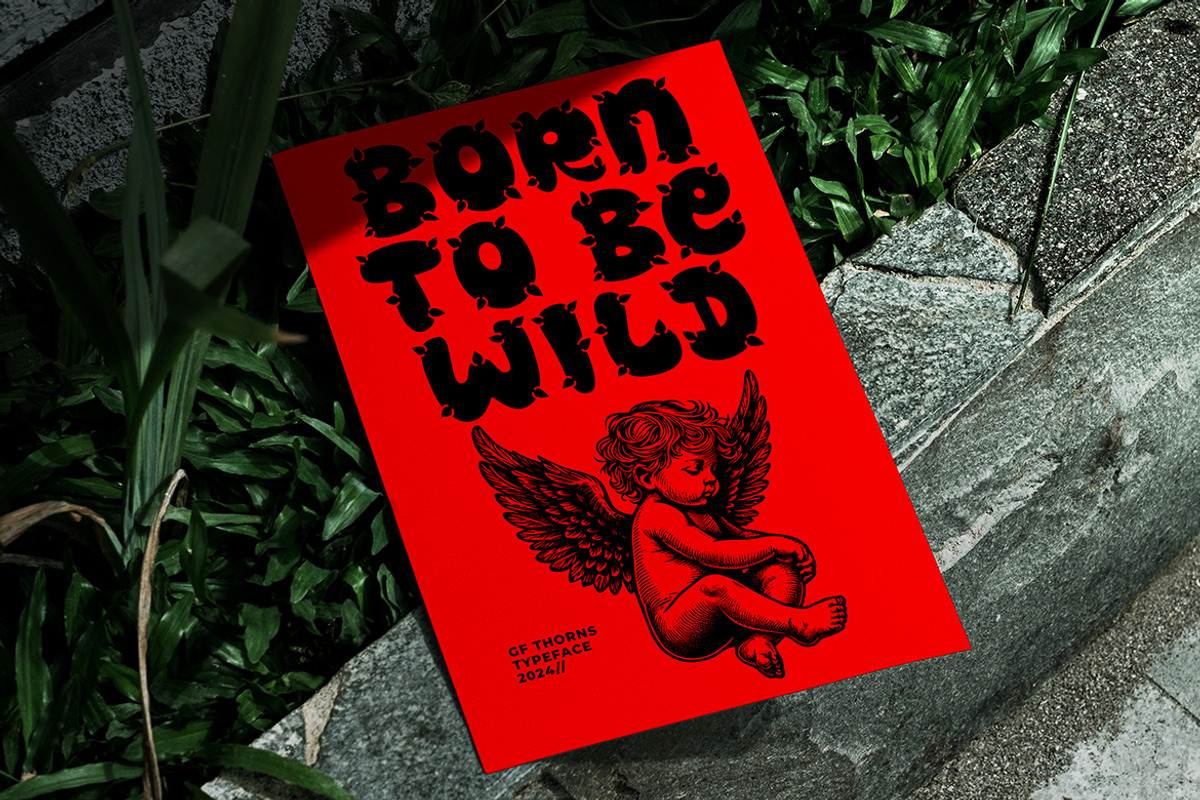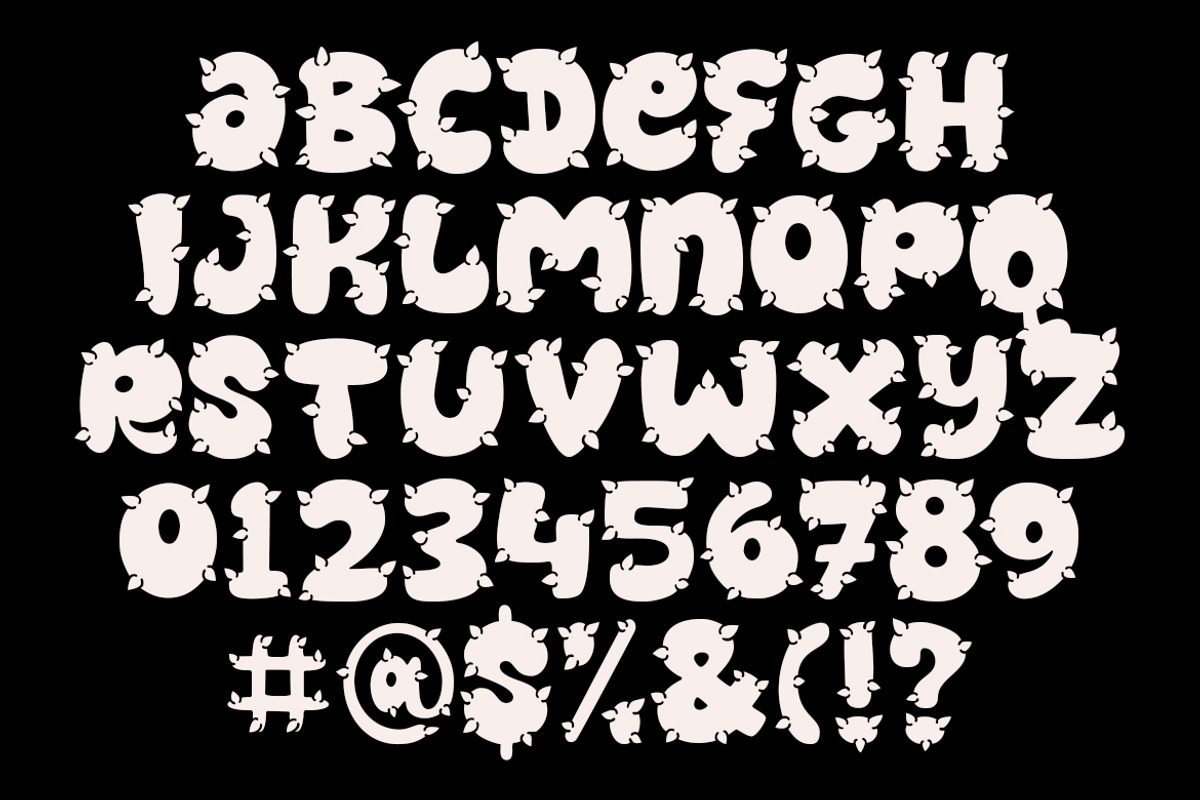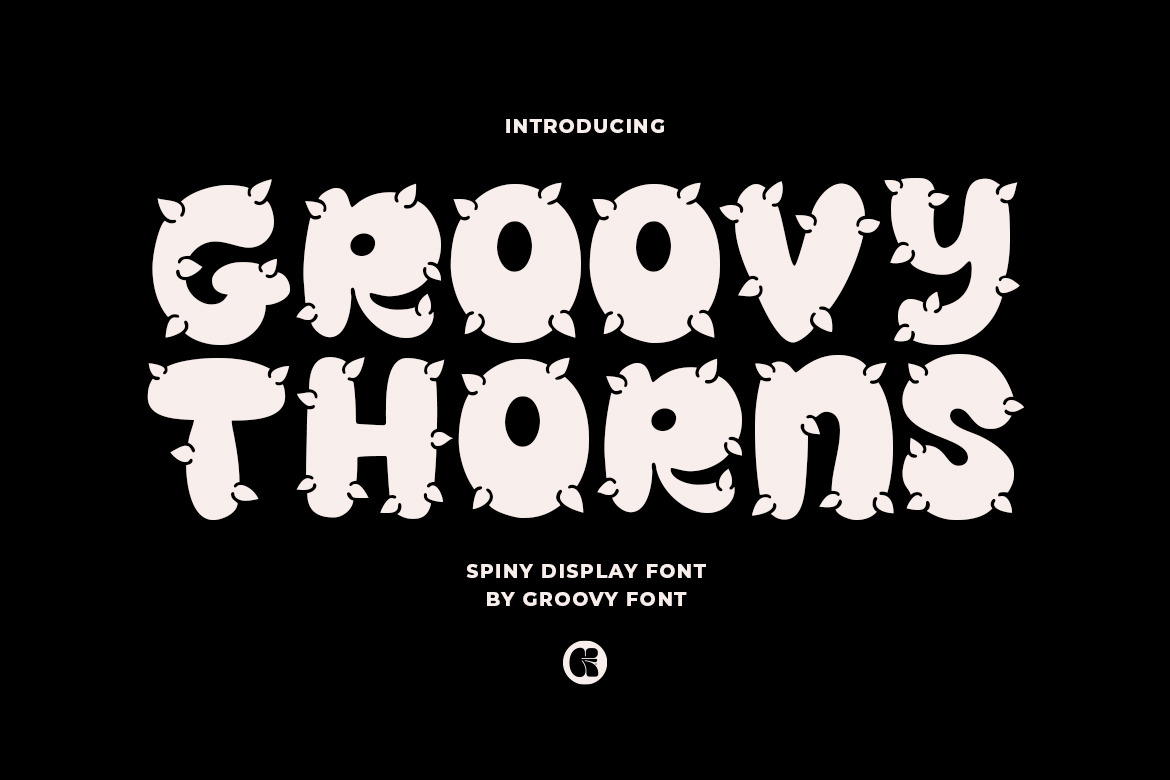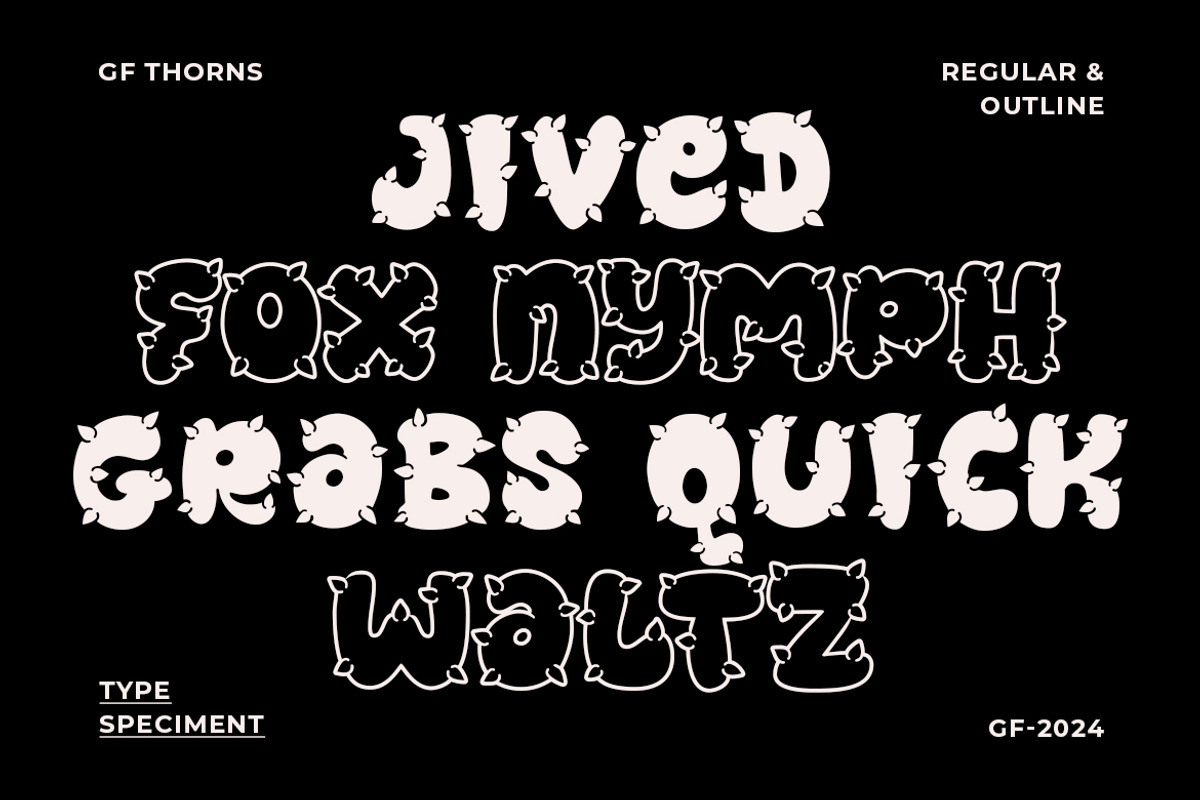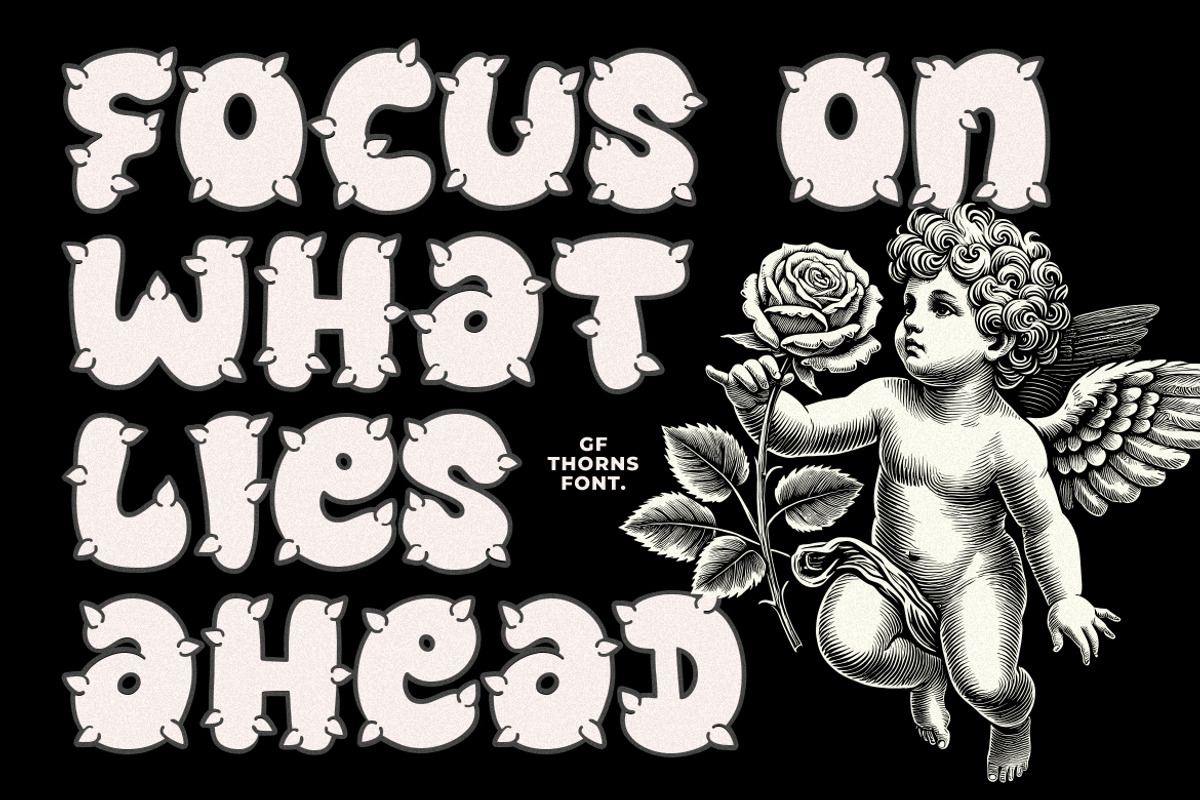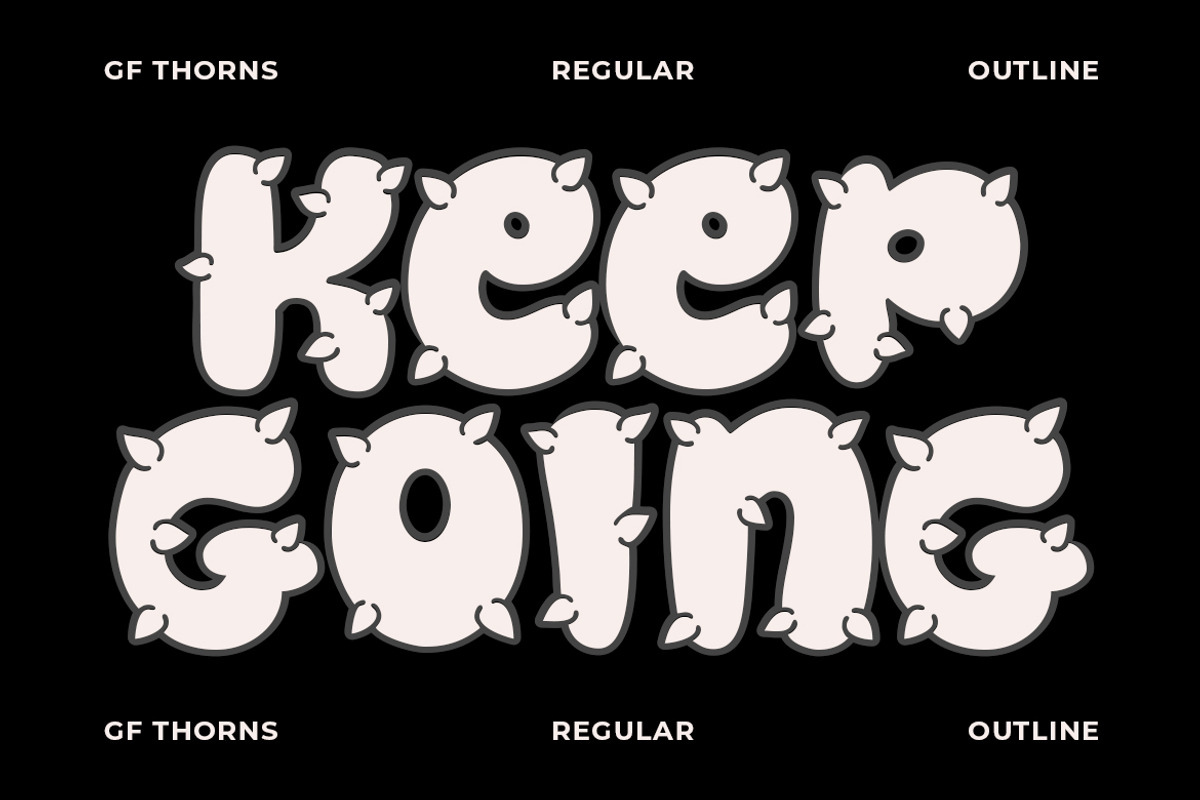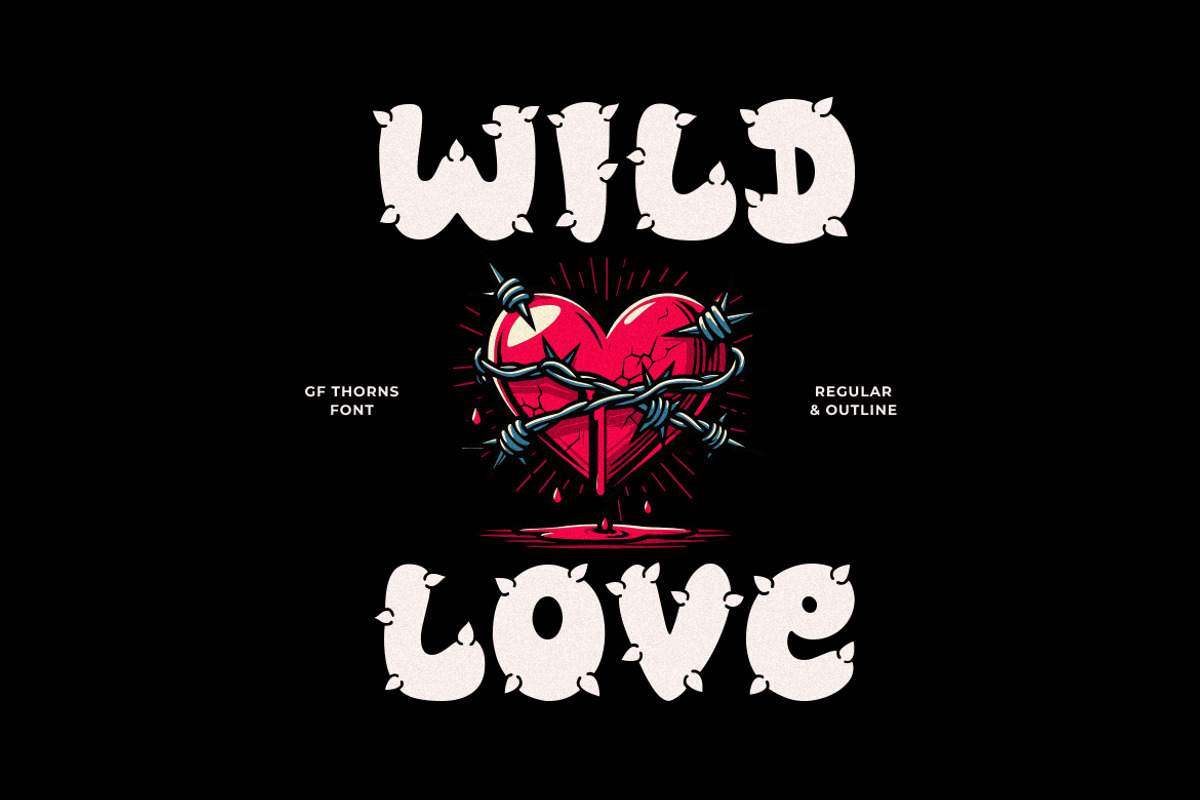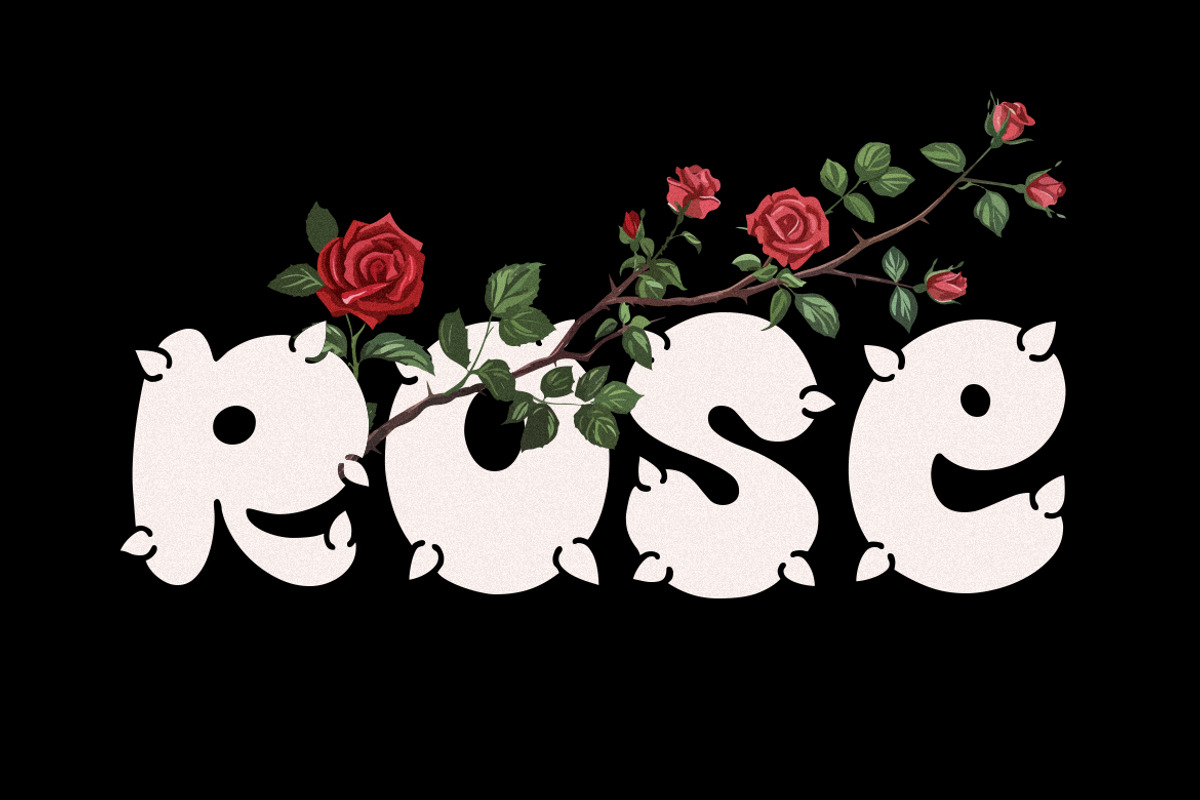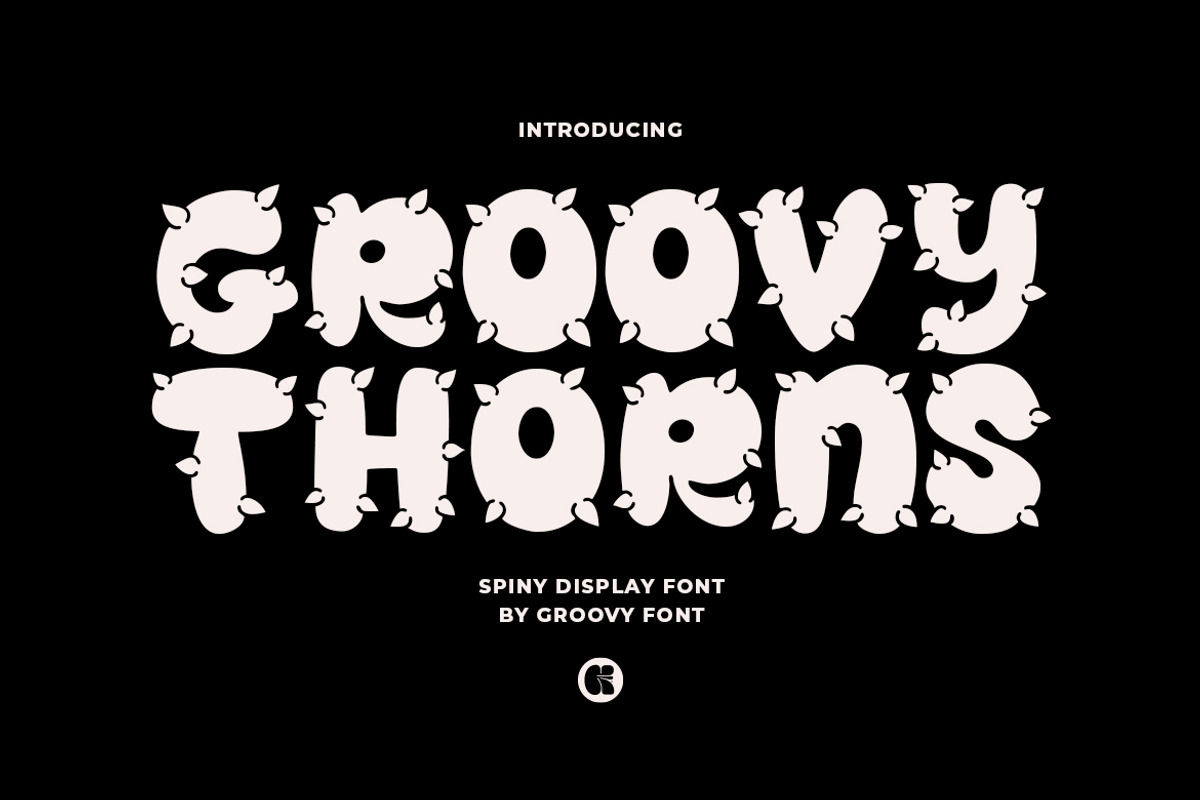
Groovy Thorns - Spiny Display Font
Groovy Thorns font is a unique and edgy display font that features intricate designs inspired by the thorny branches of a rose.
This font's spiny and ornate details add a touch of sophistication and drama to any text it is applied to.
With two styles available - regular and outline - Groovy Thorns provides flexibility in creating different text effects and layouts.
This font is ideal for projects that require a bold and distinctive look with a hint of decorative elegance.